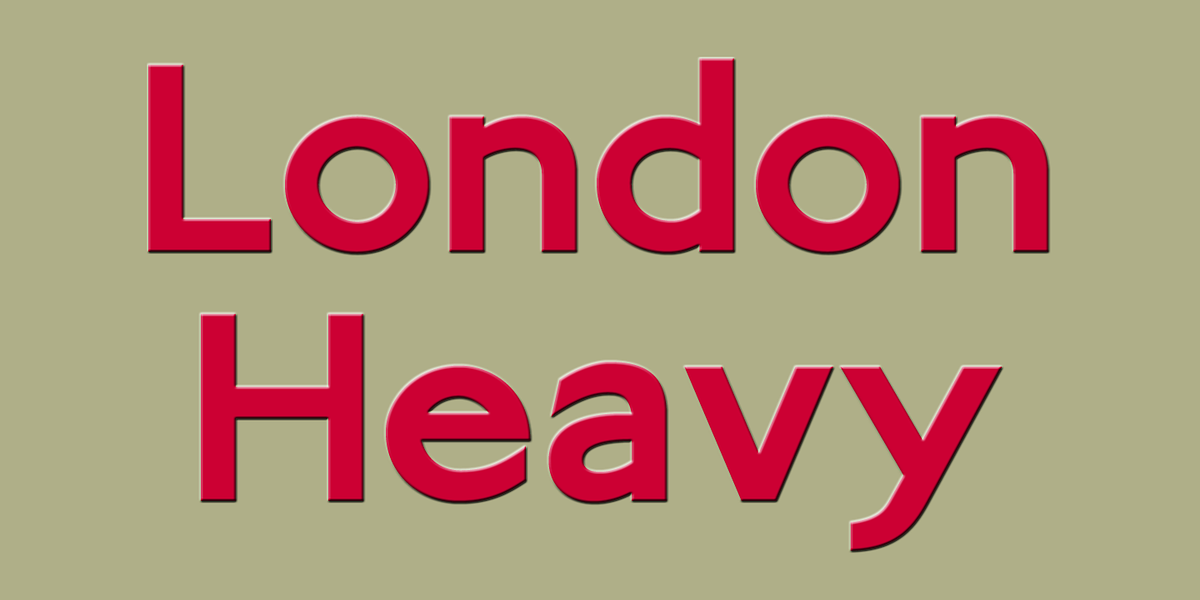
London Heavy
London Heavy is a bold sans serif font that draws inspiration from the iconic typeface used in London Underground signage. Its geometric shapes and high contrast create a strong and modern aesthetic, making it well-suited for headlines, branding, and signage applications.